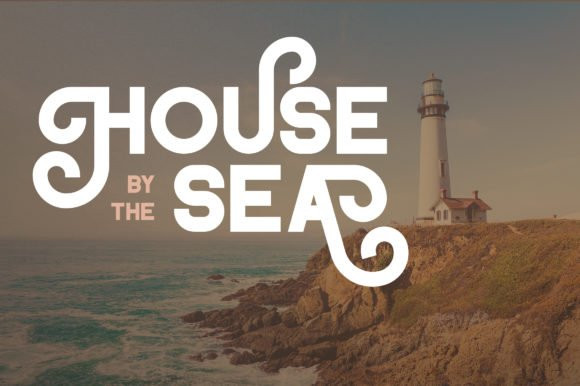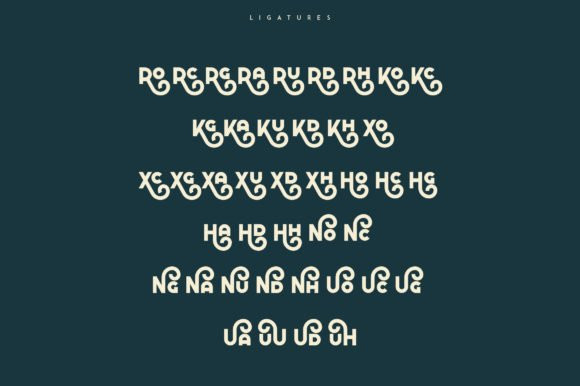
Propaganda Font
Propaganda Black is a bold display font, defined by a vintage vibe. This original look will appeal to a wide range of crafty ideas, from letterheads and titles, to stationery.